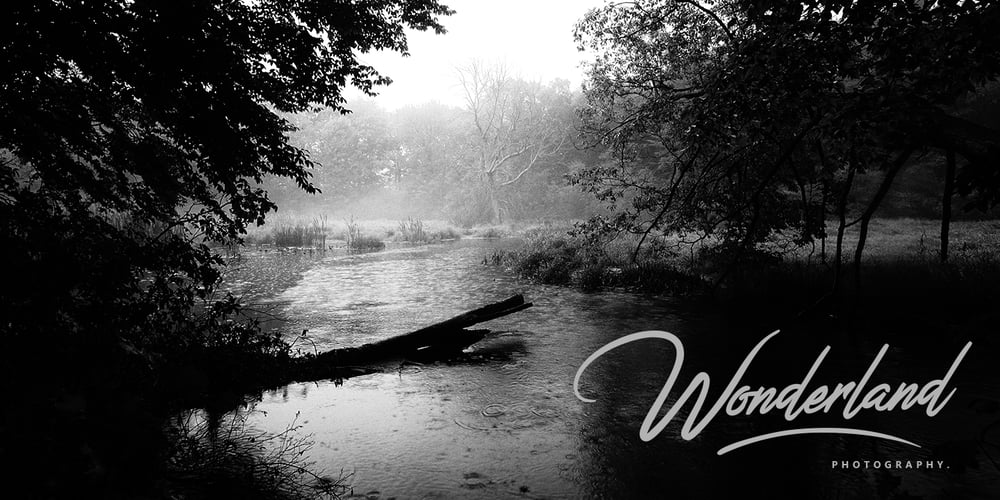
Jefinian Script Font Family was designed by Faisal Tanjung and published by sizimon. Jefinian Script contains 2 styles and family package options. A typeface with a handmade signature style, very suitable to make a logos, name tag, handwritten quotes, product packaging, merchandise, social media & greeting cards.It contains a full set of lower & uppercase letters, a large range of punctuation, numerals, and multilingual support, also has alternative characters. To enable the OpenType Stylistic alternates, you need a program that supports OpenType features such as Adobe Illustrator CS, Adobe Indesign & CorelDraw X6-X7.